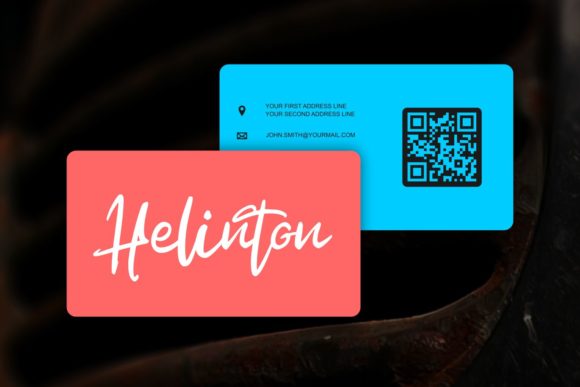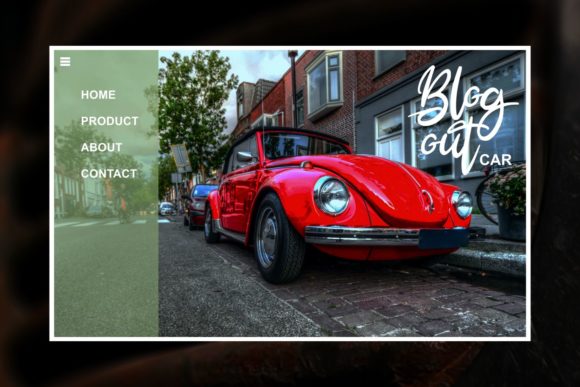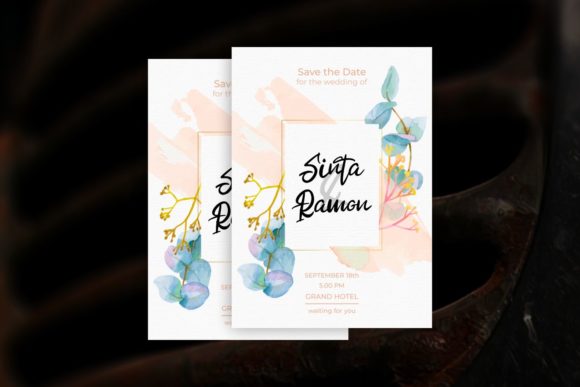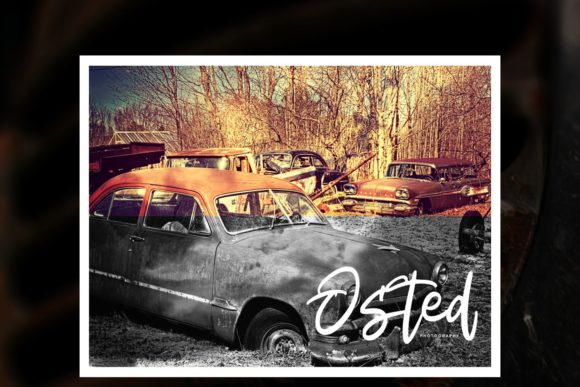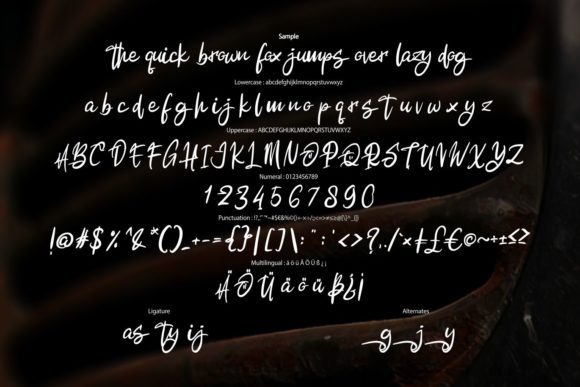
Discover the Charm of Alkatros Font: A Friendly and Modern Script Font
Are you a designer or crafter looking for a font that can add a touch of personality to your creative projects? Look no further than Alkatros Font, a friendly and modern script font that’s sure to inspire. In this article, we’ll dive into the authentic elements of Alkatros and explore how you can get the most out of this beautiful font.
What is Alkatros Font?
Alkatros Font is a script font designed to bring a sense of warmth and approachability to your designs. Its modern and friendly aesthetic makes it perfect for a wide range of creative projects, from branding and advertising to crafting and DIY tutorials. With its flowing lines and elegant curves, Alkatros is sure to add a touch of sophistication to any design.
The Authentic Elements of Alkatros
So, what makes Alkatros Font so special? Here are just a few of the authentic elements that set it apart:
- Unique Letterforms: Alkatros features a range of unique letterforms that are designed to work together to create a cohesive and stylish look. From the elegant curves of the uppercase letters to the playful flair of the lowercase letters, every character is carefully crafted to add to the overall aesthetic of the font.
- Flowing Connections: One of the standout features of Alkatros is its flowing connections between letters. These connections create a sense of movement and fluidity, making the font feel dynamic and engaging.
- Modern Twists: While Alkatros has a classic feel, it also features a range of modern twists that keep it feeling fresh and contemporary. From subtle variations in line width to clever uses of negative space, every element of the font is designed to feel modern and on-trend.
Using Alkatros Font in Your Designs
So, how can you use Alkatros Font in your designs? Here are a few ideas to get you started:
- Branding and Advertising: Alkatros is perfect for branding and advertising projects, where its friendly and approachable aesthetic can help to create a positive association with your brand.
- Crafting and DIY Tutorials: If you’re a crafter or DIY expert, Alkatros can add a touch of personality to your tutorials and patterns. Use it to create eye-catching headings, titles, and other design elements that will make your content stand out.
- Digital and Print Materials: Alkatros can be used for a wide range of digital and print materials, from social media graphics and blog posts to brochures, flyers, and other marketing materials.
Tips for Getting the Most Out of Alkatros
Here are a few tips for getting the most out of Alkatros Font:
- Experiment with Different Sizes and Styles: Alkatros looks great in a range of sizes and styles, so don’t be afraid to experiment and find the combination that works best for your project.
- Pair it with Other Fonts: Alkatros can be paired with a range of other fonts to create a unique and stylish look. Try pairing it with a bold sans-serif font for a striking contrast.
- Use it to Add Personality: Alkatros is all about adding personality to your designs, so don’t be afraid to get creative and have fun with it. Use it to add a touch of whimsy or humor to your projects, or to create a more elegant and sophisticated look.
Alkatros Font is a friendly and modern script font that’s perfect for designers and crafters looking to add a touch of personality to their creative projects. With its unique letterforms, flowing connections, and modern twists, Alkatros is sure to inspire. Whether you’re working on a branding project, crafting tutorial, or digital design, Alkatros is a great choice. So why not give it a try and see what amazing things you can create?